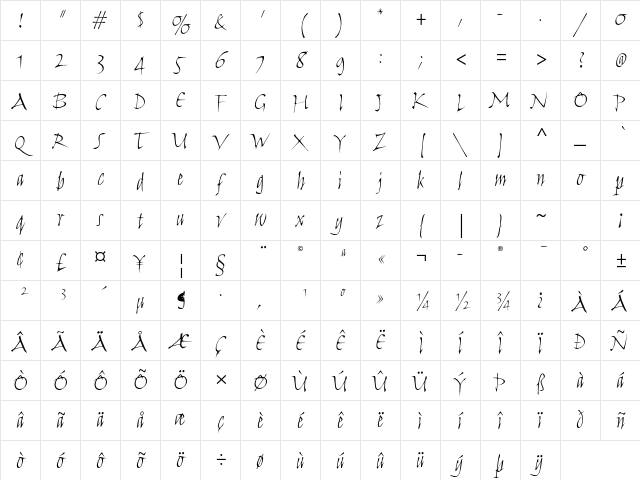
Humana Script ITC Std Light
Designer: Timothy Donaldson
Design Context for Humana Script ITC Std
Humana Script ITC Std flows with the natural rhythm of handwritten lettering, making it ideal for designs that call for warmth and personal expression. Its slender proportions lend an understated elegance to any composition.